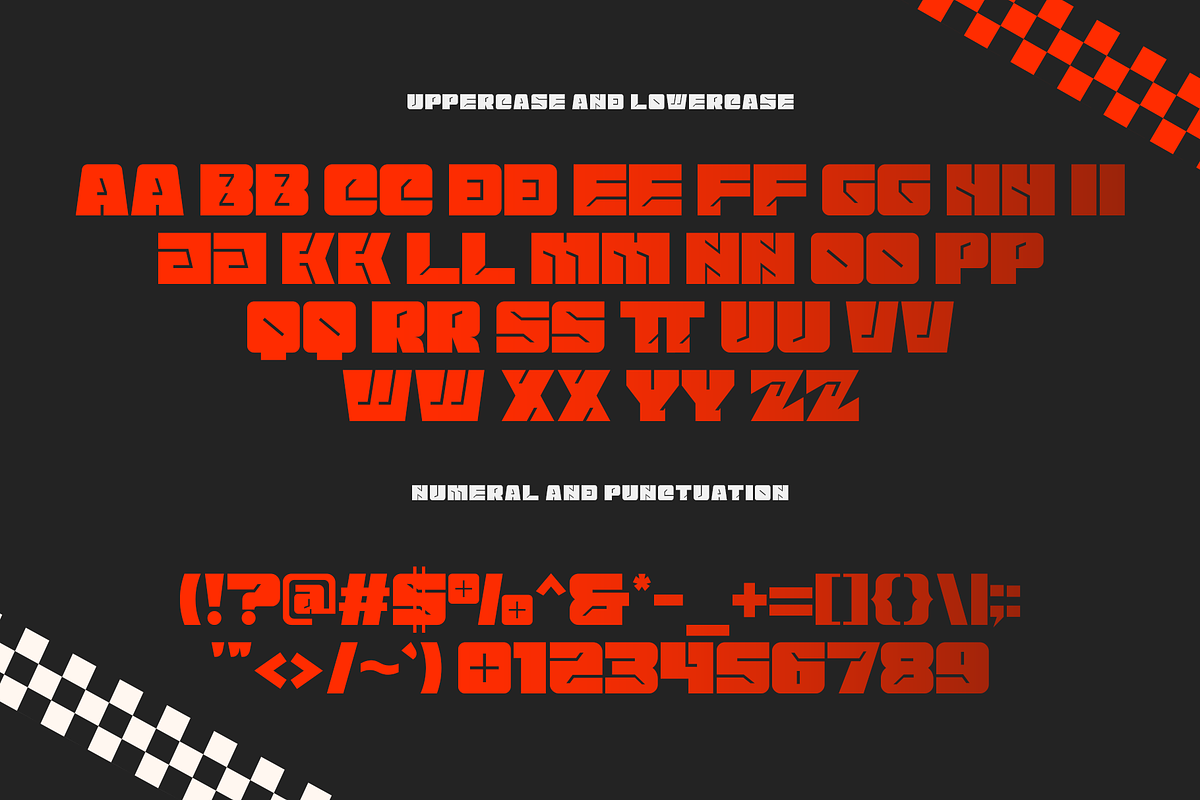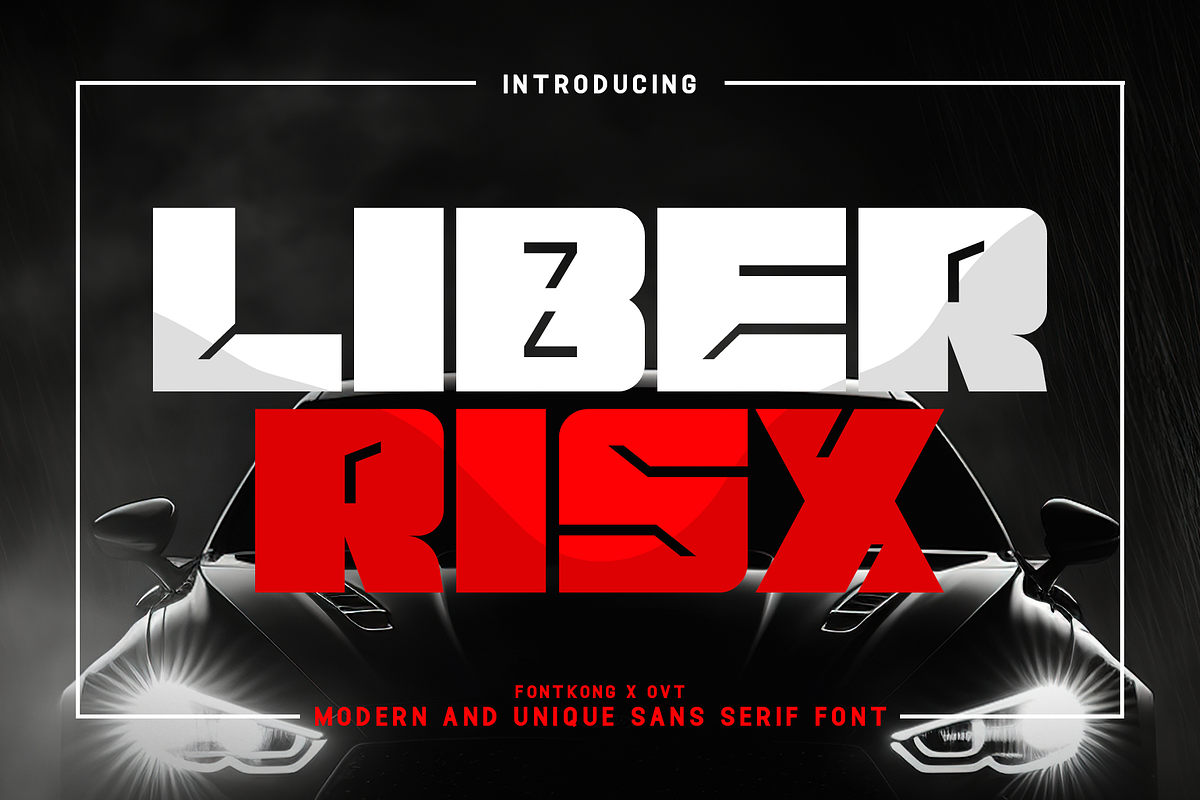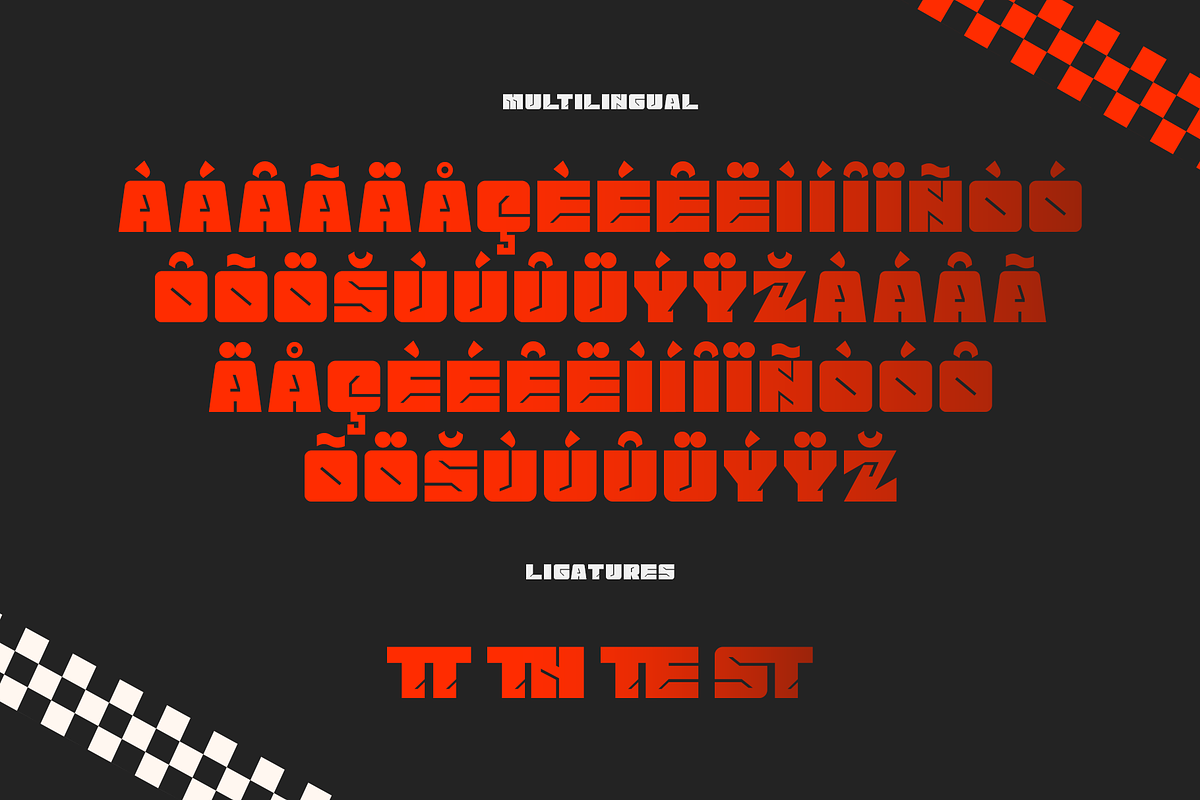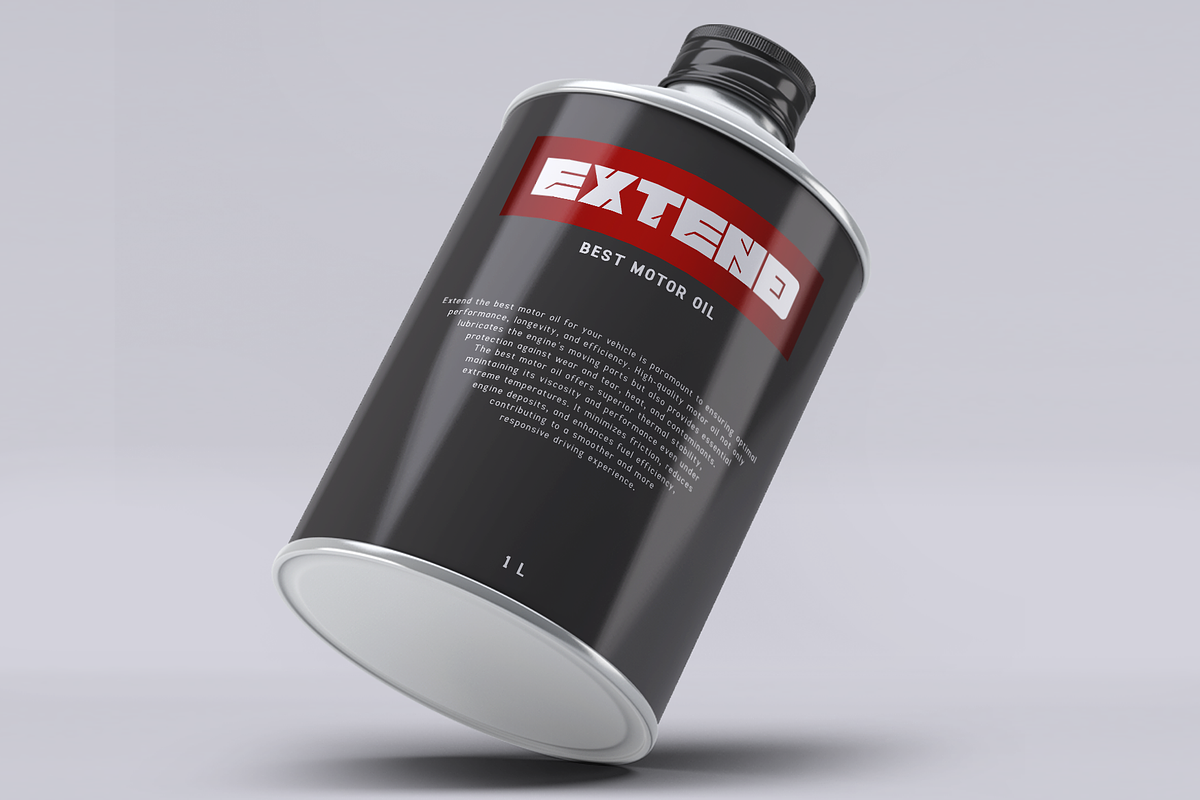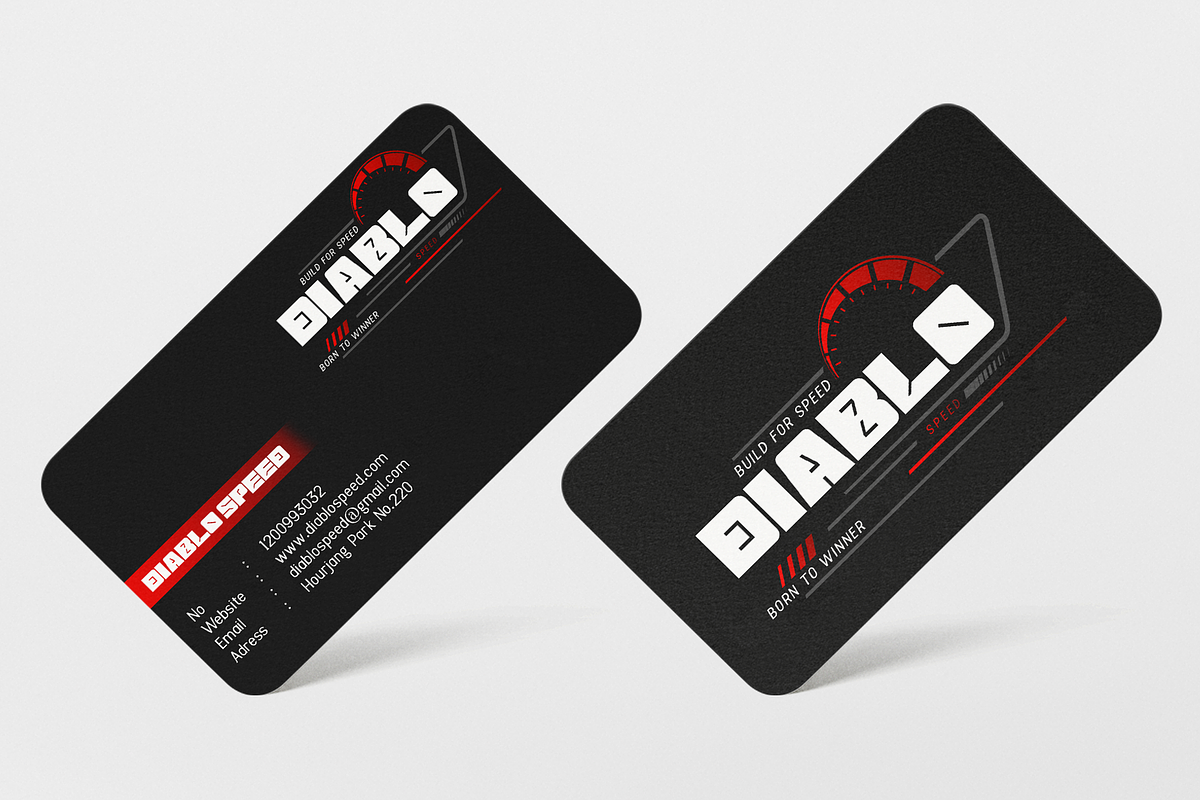
Liberisx - Modern and Sans Serif
Liberisx - Modern and Unique Sans Serif Typeface
Introducing "Liberisx," a modern and unique sans serif typeface that combines clean lines with distinctive character. Designed for the discerning designer, "Liberisx" offers a fresh take on contemporary typography, perfect for adding a sophisticated edge to your projects.
"Liberisx" features a comprehensive set of uppercase and lowercase letters, numerals, punctuation, and special characters. Its design stands out with unique stylistic elements that bring a touch of originality while maintaining clarity and readability. Ideal for branding, logos, editorial design, and web design, "Liberisx" provides the versatility needed for both print and digital media.
Whether you're crafting a sleek corporate identity, an elegant magazine layout, or a modern website, "Liberisx" ensures your text makes a statement. Its balance of modernity and uniqueness sets it apart, making your designs memorable and impactful.
"Liberisx" is the perfect typeface for designers seeking to elevate their work with a modern, unique flair.